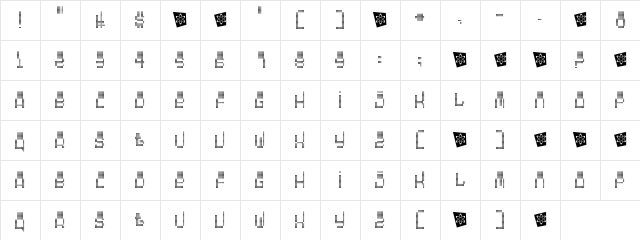
Oddessey 5000 Regular
Design Context for Oddessey 5000
Oddessey 5000 is a composed and adaptable typeface that performs quietly and consistently across a wide range of design contexts.